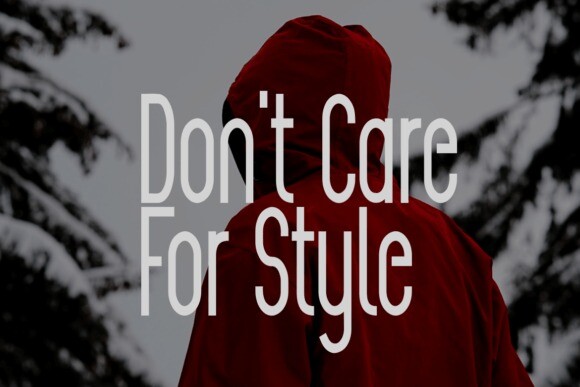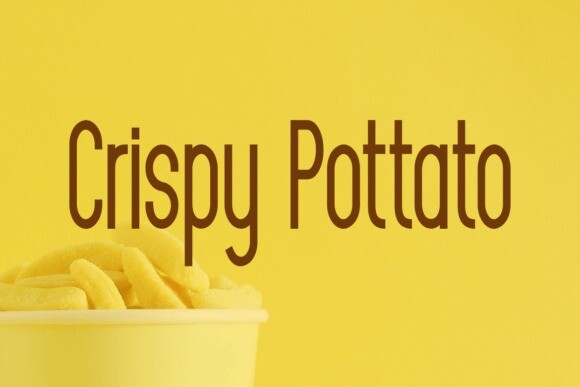
Messenger Font
Messenger is a cool and modern sans serif font. It has beautiful and well-balanced characters and as a result, it matches a wide pool of designs.